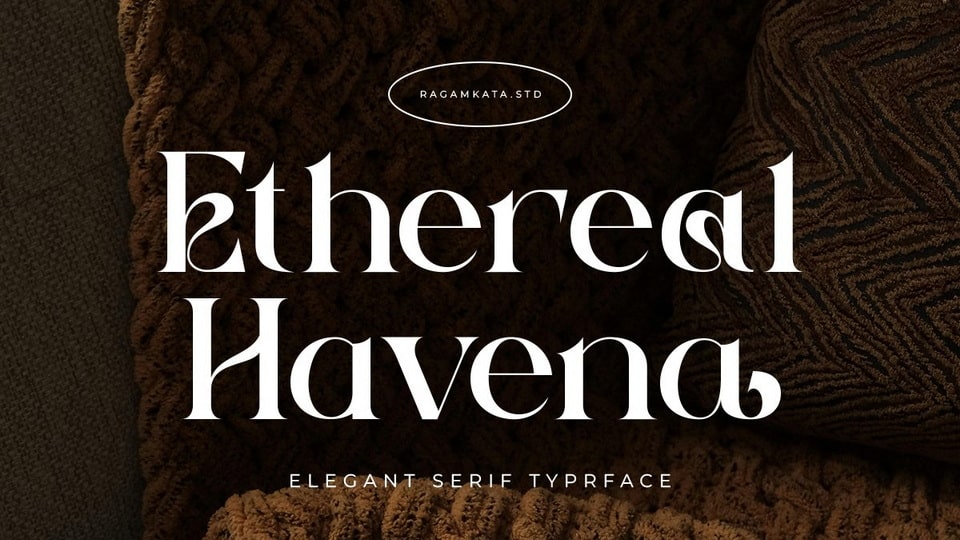
Download Ethereal Havena font, a modern typeface exuding femininity and beauty, that combines the delicate strokes of serif typography with the elegant touch of ligatures.